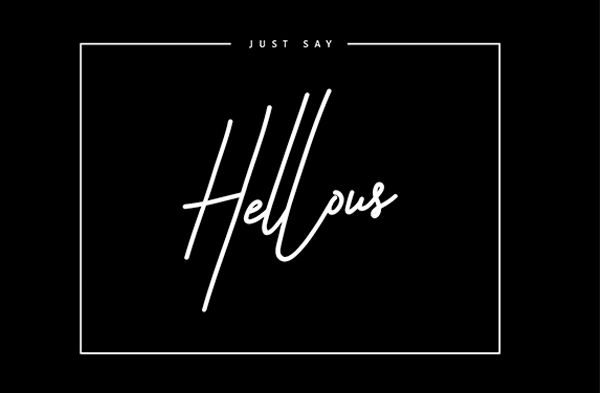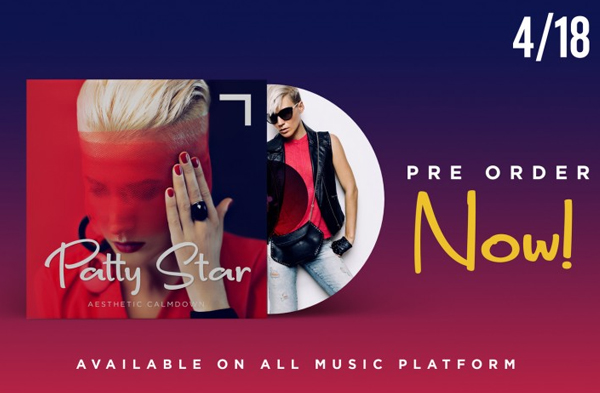
Handwriting styles and fonts have been the most significant part of any marketing materials in attracting and conveying the message in a clear manner. In the online marketplace, there exists plenty of websites that offer free best different writing fonts that are used by designers which makes the selection process difficult. However, Template Updates brings the gorgeous handpicked best of the best different writing fonts to suit different business needs and themes. With the help of these best fonts, now designers can easily design any font type in an easy and quick way. Hence look no further, browse the wide collection of calligraphy and typography font styles and get them downloaded for free and premium versions.
Take Note Handwritten Font
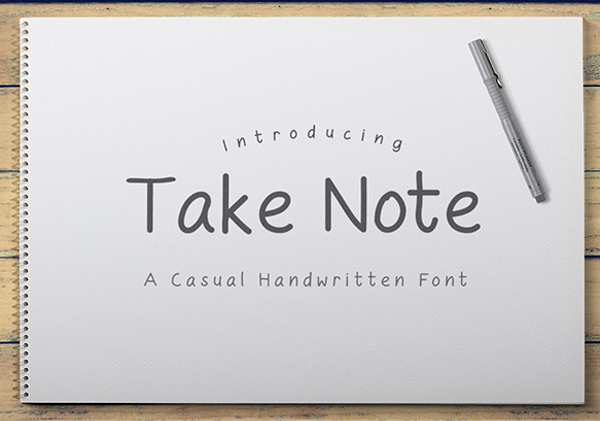
Take Note Handwritten Font is basically an informal handwritten font that could be used for several projects. You can use it for stationery projects, quotes, etc. You get OTF format here, supporting English and other major European languages.
Isabella Script Free Best Different Writing Fonts
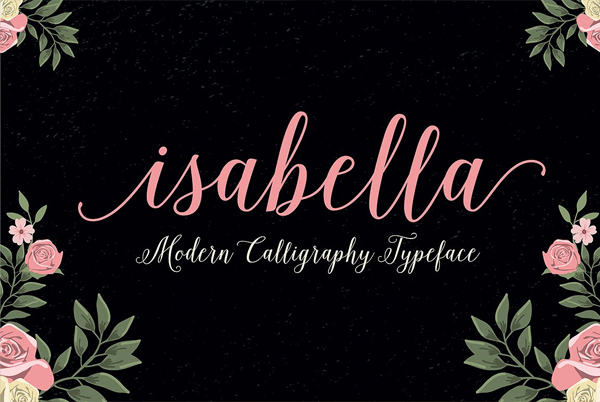
The name is enough to impress most of you – Isabella Script Free Best Different Writing Fonts. This font is mostly used to create special event cards, such as fashion magazines, flyers, broachers, shopping bags, comic covers and whatnot.
Yolan Unique Font
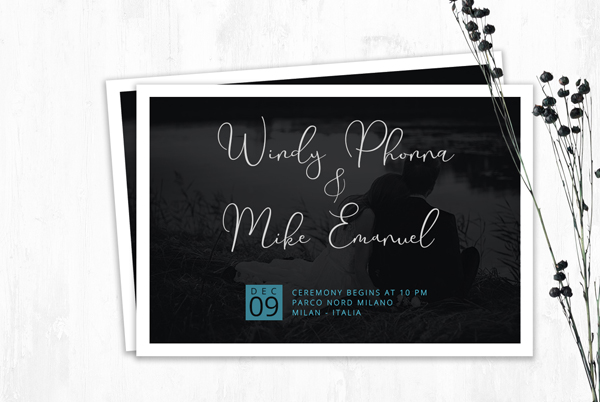
Are you looking for something new to give your script font a unique yet attractive style? Then use our Yolan Unique Font, which is thin in style and suits your needs. Further, it looks sleek, adorable, classy, easy and firm.
Casual Brush Handwriting Font
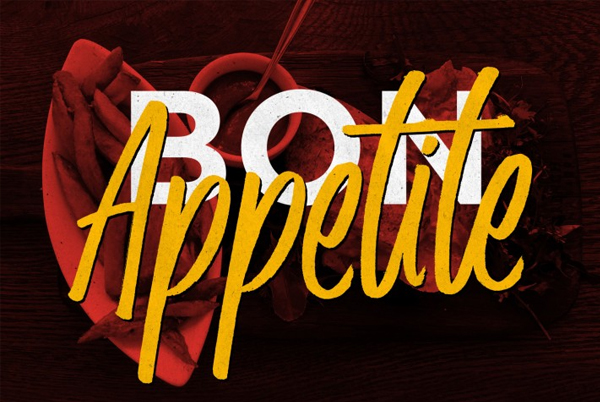
Casual Brush Handwriting Font is a new handwriting typeface. It is a perfect combination of instant handwriting typography and an exhausted pen brush. You can use it for several designing, like logos, quotes, apparel, invitation cards, flyers, posters, etc. It gives you a perfect handwriting feel.
Bromello Typeface
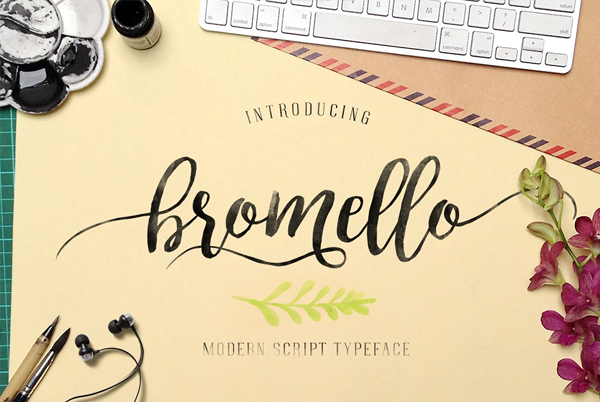
Are you in search of script-type font? Look no further, as Bromello Typeface is exactly what you are looking for. It is preferable for personal use, supporting all devices, including PC, iOS, Android, Mac and Linux. Best way to create attractive graphics.
Fun Casual Handwriting Font
Caroline Handwriting Font
Hand Lettering Font
Astronaut Signature Typeface Font
Saturday Script Brush Font
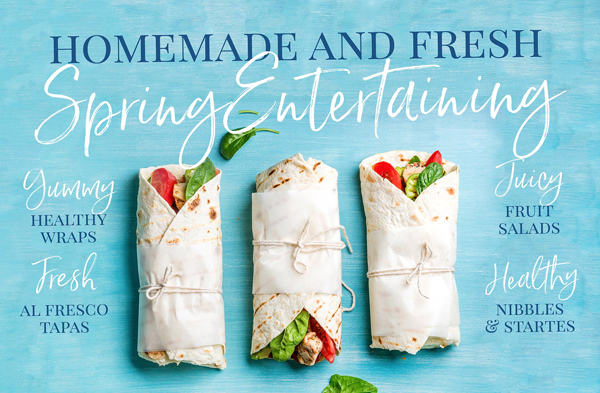
Lost In Space Colored Font
Clean Handwriting Font
Free Download CD Writing Font
Stephen Type Font
Washington Calligraphy Modern Font
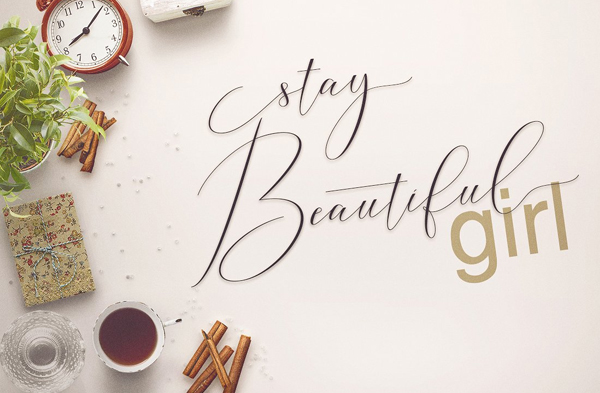
Meetha Script Font
Handwriting Font
Humble Script Font
Sydney Font
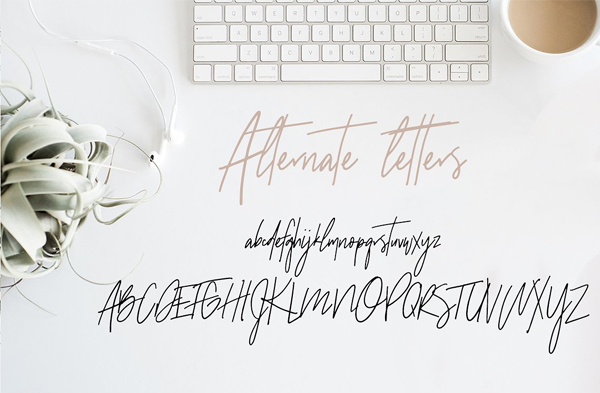
Free Download School Writing Font
Porter Font
Serendipity Handwritten Font
Elegant Script Font
Diadema Font
White Oleander Handwritten Font
Saythis Script Upright Font
Hand Drawn Elegant Font